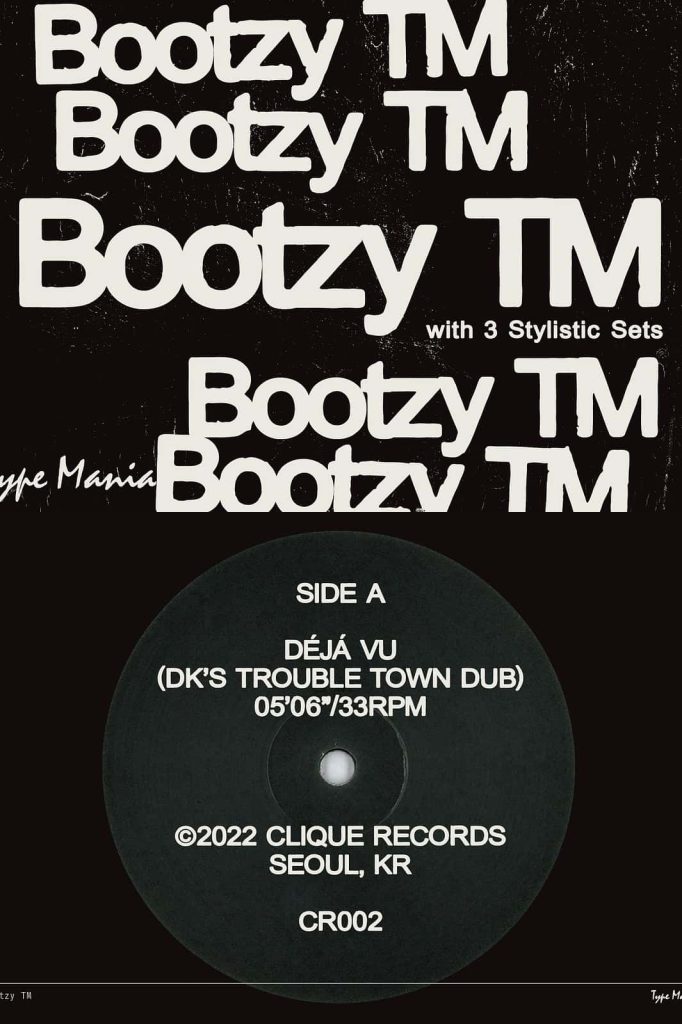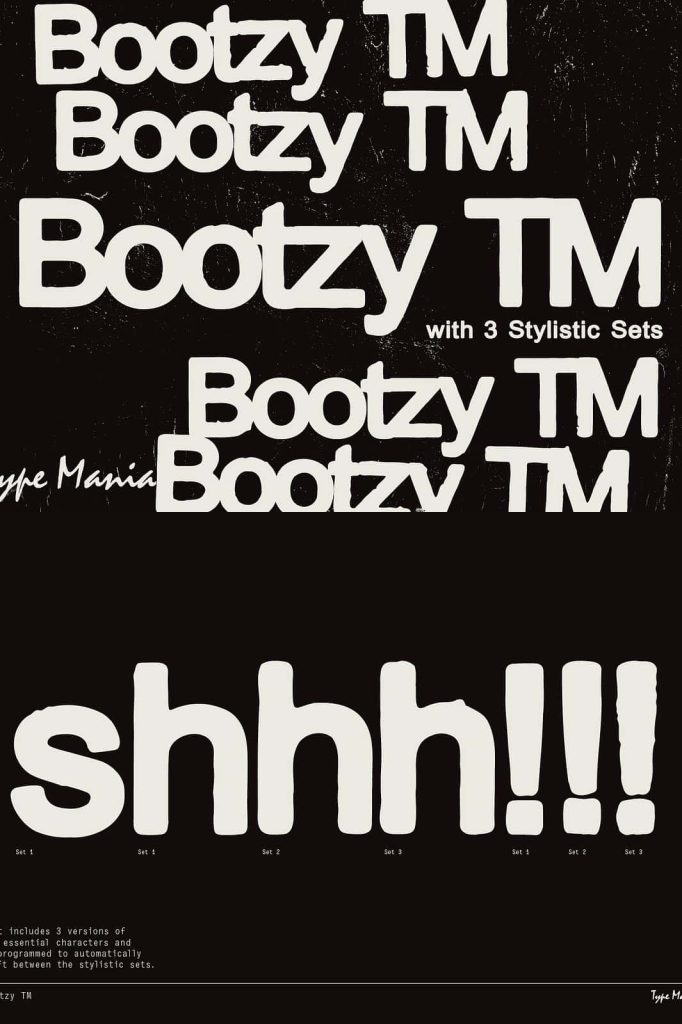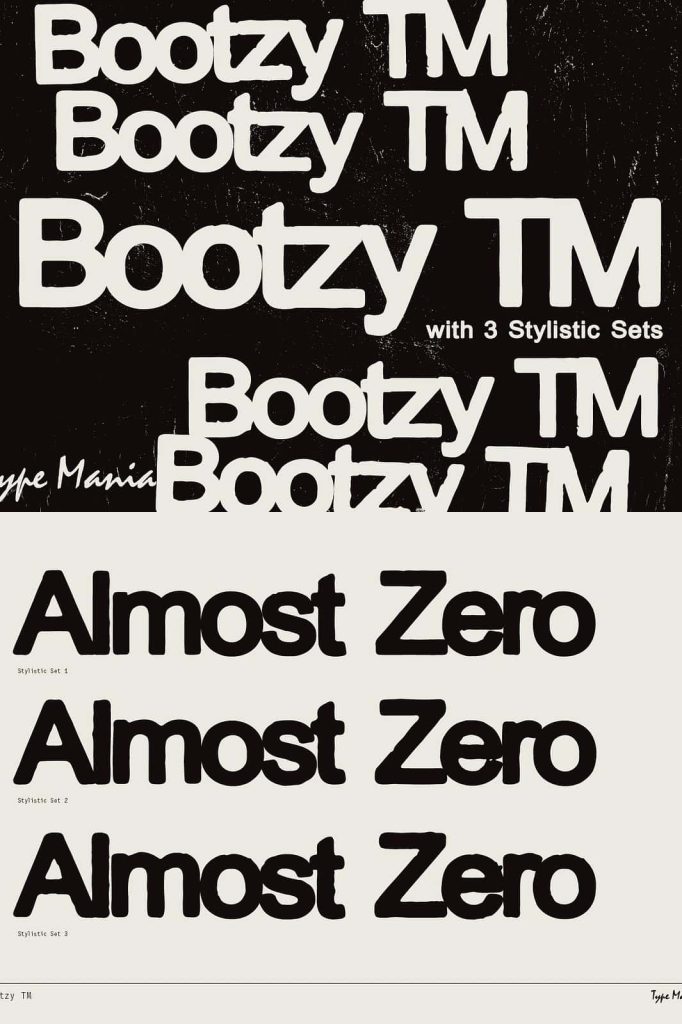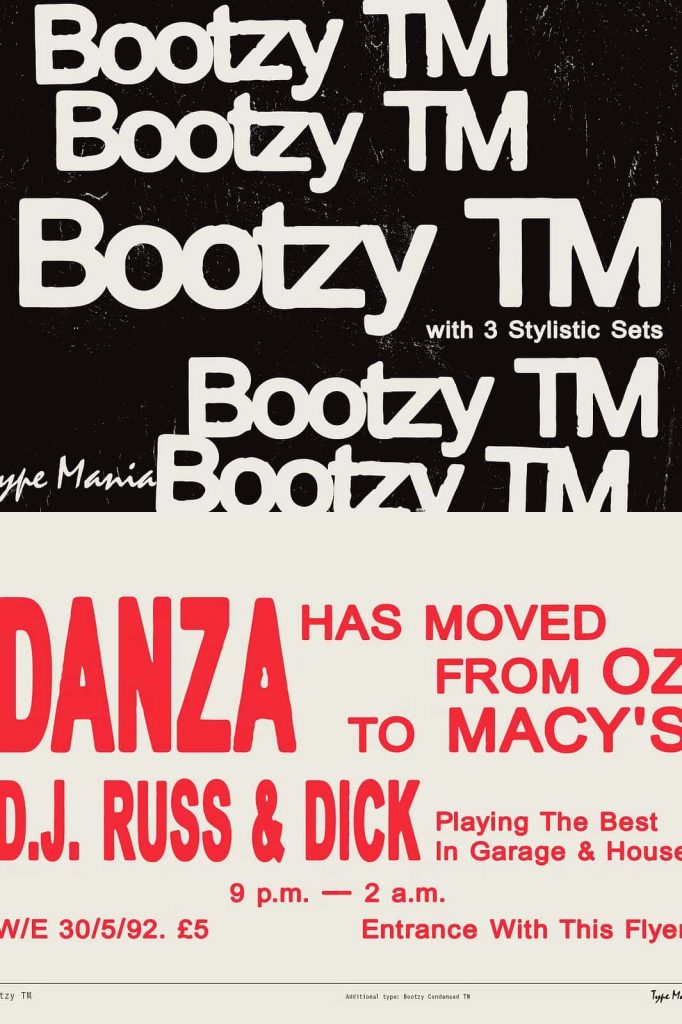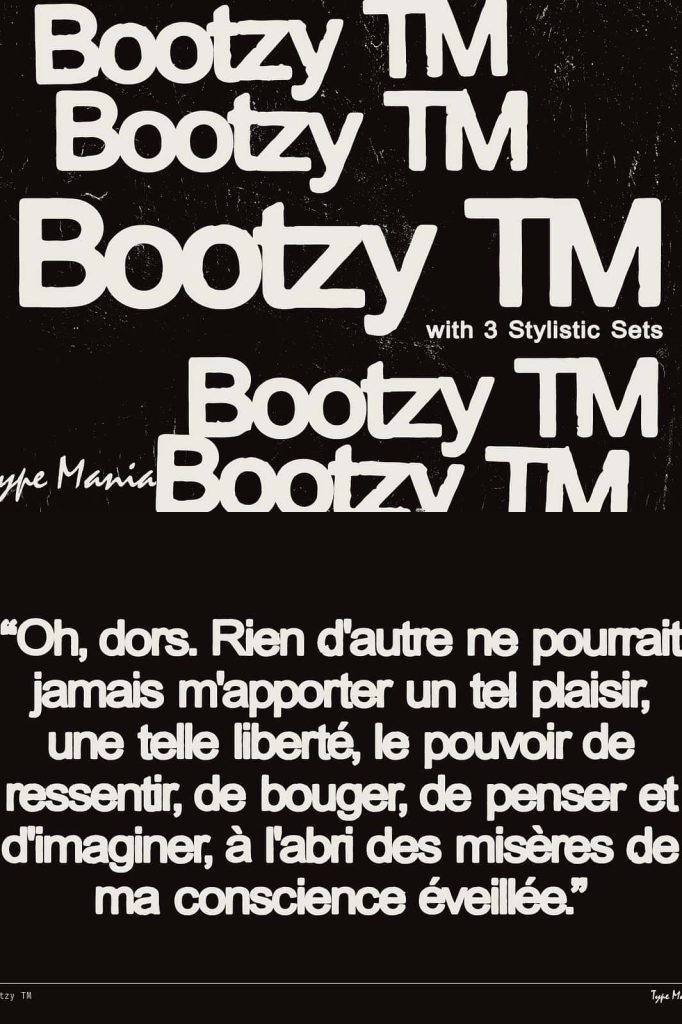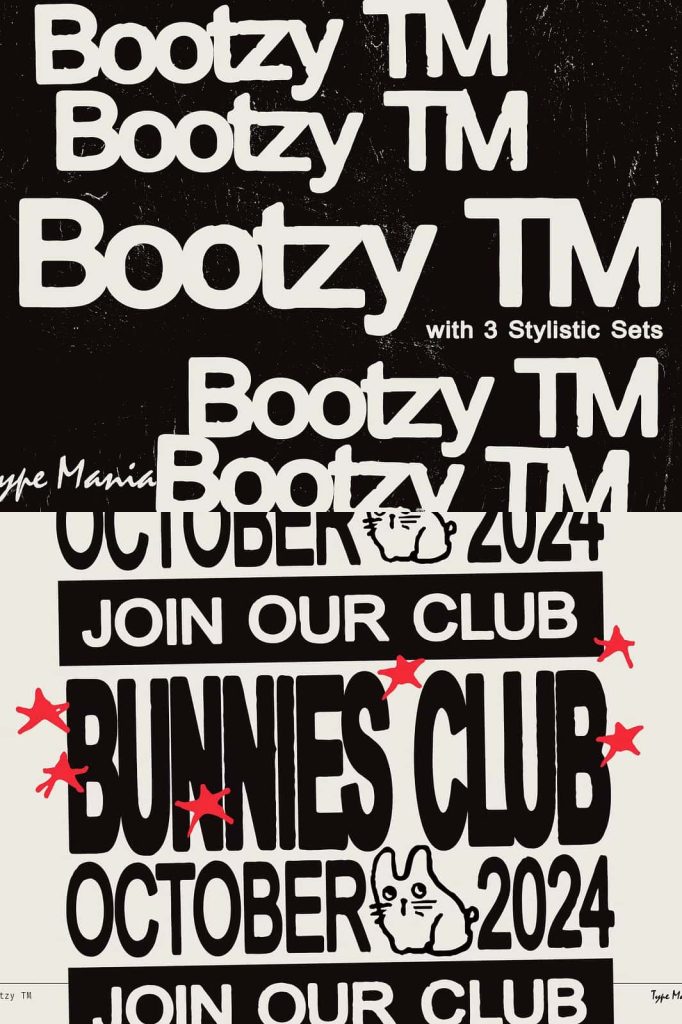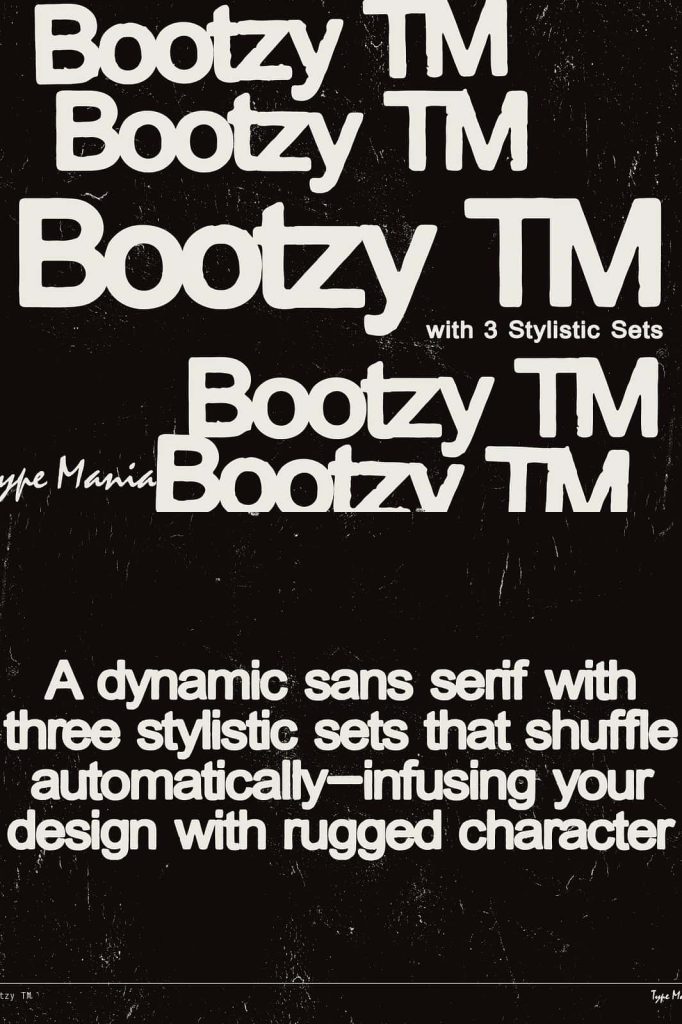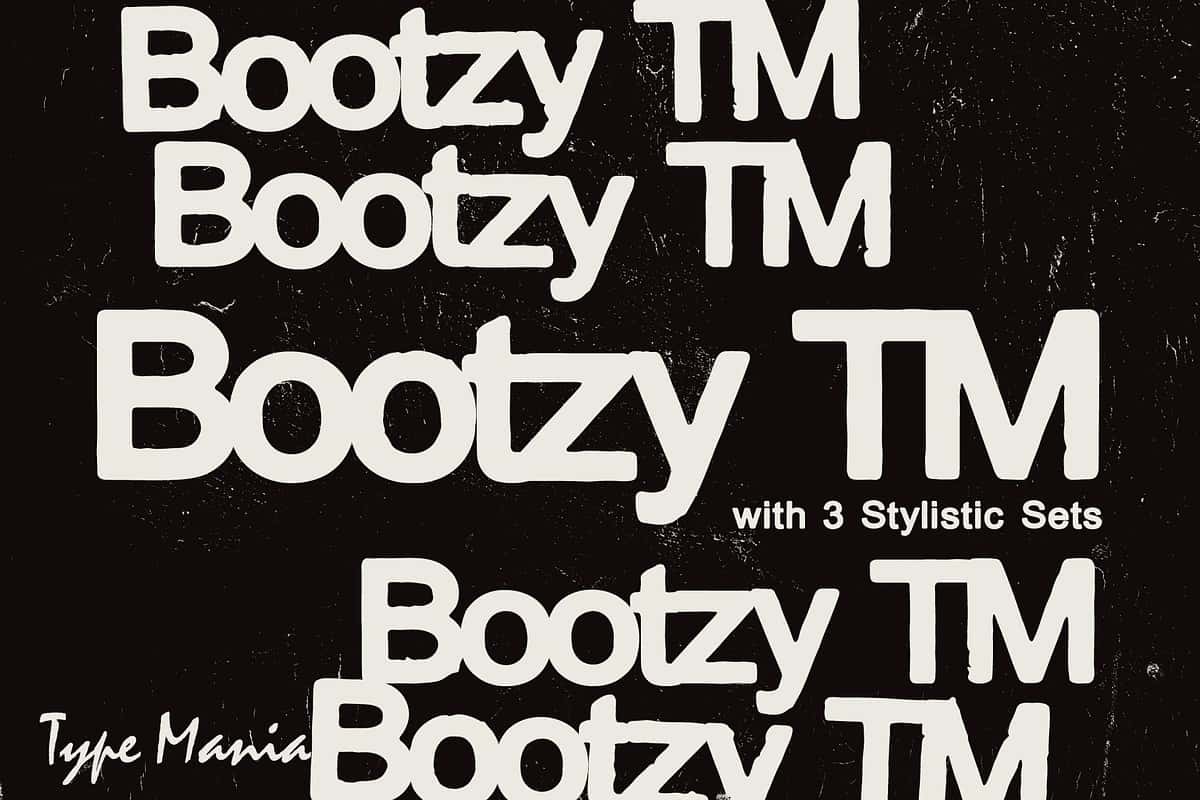
Bootzy TM Tough Sans Serif Font
Bootzy TM is a bold and tough sans serif font created to bring strong personality, texture, and visual energy into modern design projects. Built with powerful letterforms and rugged stylistic details, this typeface delivers an eye-catching aesthetic that works exceptionally well for creative branding, music artwork, promotional graphics, and streetwear-inspired designs.
Designed for creators who want typography with impact and character, Bootzy TM combines bold sans serif structure with unique automatic stylistic alternates that give every design a more natural and dynamic appearance. With three stylistic sets included, the glyphs automatically shuffle while you type, creating subtle texture variations and handcrafted visual rhythm across your layouts.
This innovative feature helps designers avoid repetitive typography while adding depth and originality to every composition. Whether you are creating album covers, flyers, apparel graphics, or modern branding materials, Bootzy TM delivers strong visual presence with authentic style.
Bold Sans Serif Typography with Character
Bootzy TM stands out because of its bold and rugged typography style. The strong sans serif construction gives the font excellent readability and visual impact, while the stylistic alternates introduce movement, texture, and creative detail.
Unlike ordinary sans serif fonts that can feel flat or repetitive, Bootzy TM creates a more organic and expressive design experience. The automatic glyph shuffling feature adds subtle variations to repeated letters, making headlines and typography layouts feel handcrafted and visually engaging.
This balance between structure and personality makes Bootzy TM ideal for modern creative industries where designers need typography that feels fresh, powerful, and distinctive.
Perfect for Flyers and Promotional Graphics
Bootzy TM was built to command attention. Its bold visual style makes it perfect for flyers, posters, event promotions, and marketing materials that need to stand out instantly.
Music Flyers and Album Covers
The font works exceptionally well for music-related projects such as concert flyers, festival posters, album artwork, and artist branding. Its gritty yet modern appearance creates a strong visual identity for hip-hop, rock, indie, electronic, and underground music scenes.
Streetwear and Apparel Design
Bootzy TM adds attitude and texture to t-shirt graphics, hoodies, caps, tote bags, and streetwear branding. The bold lettering style helps apparel designs feel modern, edgy, and visually impactful.
Branding and Logo Design
Designers can use Bootzy TM to build memorable logos and branding systems with strong personality. Its textured sans serif style works especially well for urban brands, creative studios, cafés, barbershops, fashion labels, and entertainment companies.
Automatic Stylistic Sets for Dynamic Typography
One of the most exciting features of Bootzy TM is its built-in stylistic sets. The font includes three stylistic variations that automatically rotate glyphs as you type. This creates natural inconsistencies and texture across repeated letters, helping your typography look more handcrafted and less mechanical.
This advanced OpenType functionality gives designers greater creative freedom while saving time during the design process. Instead of manually replacing characters, the font intelligently introduces variation automatically.
The result is typography that feels:
- More organic and authentic
- Visually textured and dynamic
- Less repetitive and mechanical
- Creative and handcrafted
- Perfect for artistic display typography
Versatile for Print and Digital Design
Bootzy TM offers excellent versatility across different design applications and media formats. Designers can confidently use it for both large-scale headlines and detailed branding systems while maintaining strong readability and visual consistency.
This tough sans serif font works perfectly for:
- Flyers and event posters
- Album covers and music branding
- T-shirt and apparel graphics
- Social media content and advertisements
- Brand logos and identity systems
- Streetwear merchandise
- Packaging and promotional design
- Editorial headlines and magazine layouts
- Website headers and banner graphics
- Creative print and digital campaigns
Why Designers Choose Bootzy TM
Modern design trends often focus on bold typography with strong character and authentic texture. Bootzy TM delivers exactly that by combining a powerful sans serif foundation with innovative stylistic alternates that make every design feel more unique.
Designers choose Bootzy TM because it offers:
- Bold and rugged sans serif style
- Automatic glyph variations for dynamic typography
- Three stylistic sets included
- Strong visual impact for display text
- Excellent readability and versatility
Bring Texture and Energy to Your Designs
Bootzy TM is more than just a font. It is a creative typography system designed to infuse projects with texture, movement, and personality. The automatic stylistic alternates create a natural visual flow that helps every design feel handcrafted and unique.
From album covers and flyers to fashion branding and digital promotions, Bootzy TM delivers modern typography with bold attitude and authentic creative energy.